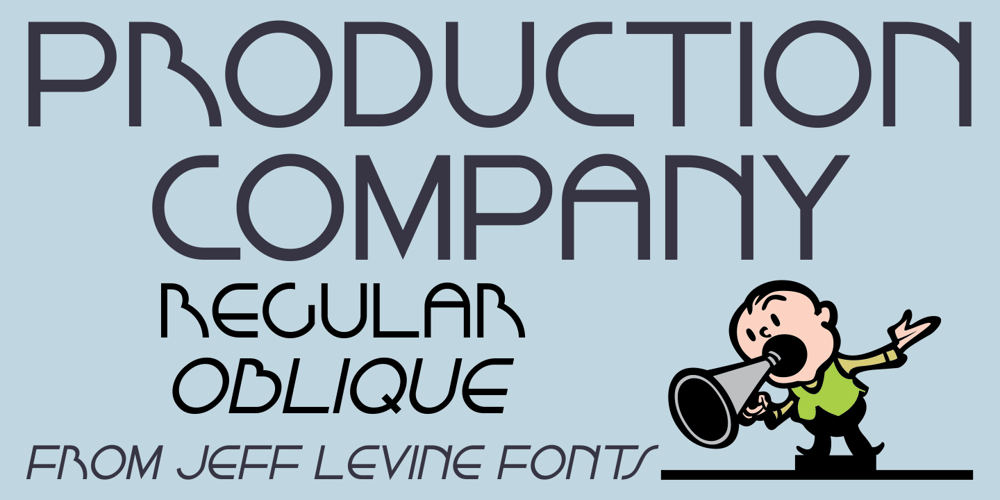
Production Company JNL Font Family was designed by Jeff Levine and published by Jeff Levine. Production Company JNL contains 2 styles and family package options. While viewing a video posted to YouTube of a 1952 drive through Los Angeles, a building was passed for King Bros. Productions, Inc.The lettering on the signage was designed in a stylized Art Deco sans serif, and thus inspired Production Company JNL – available in both regular and oblique versions.